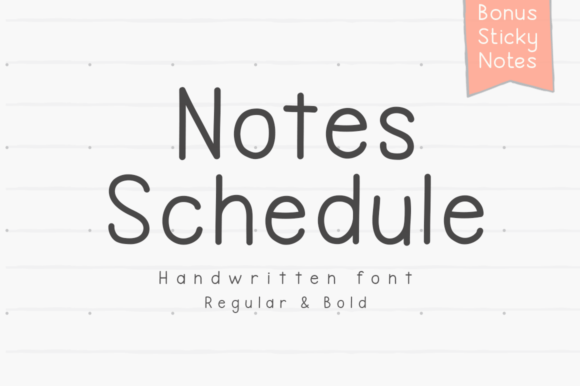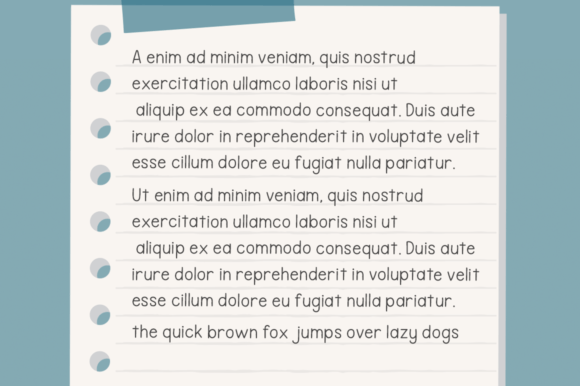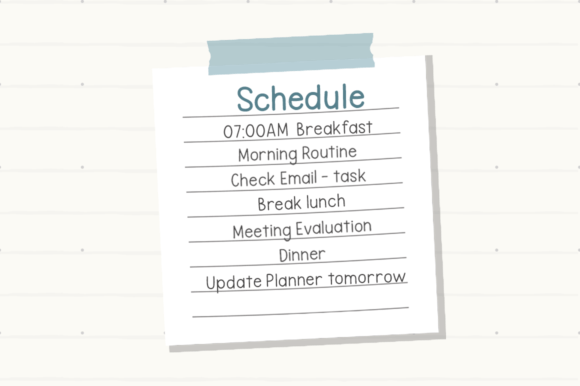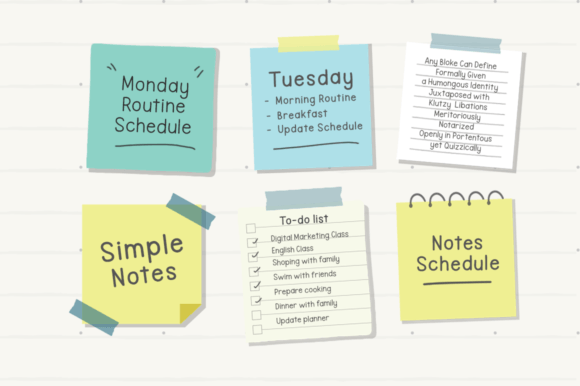
Notes Schedule Font
About the Notes Schedule Font
Unleash your creativity with Notes Schedule Font, a versatile font perfect for a wide range of applications. Schedule Notes is a simple handwritten note-taking font, you can use this font in various projects blog posts, branding, digital planners, invitations, greeting cards, planners, decorations, and more.
Its informal, handwritten style makes it ideal for projects needing a personal touch, such as branding for small businesses, handwritten-style social media posts, or invitations. It works well in headlines, short paragraphs, and on packaging where a casual, approachable feel is desired. However, avoid using it for lengthy body text or UI elements; its legibility suffers at smaller sizes.
Schedule Notes pairs effectively with clean sans-serif fonts like Open Sans or Lato for a balanced contrast, or with a playful script font like Pacifico for a more whimsical feel. A geometric sans-serif like Montserrat could also provide a modern counterpoint, depending on the desired overall aesthetic.
The font’s core personality is friendly and approachable, conveying a sense of casual warmth and approachability. It’s best suited for brands or projects aiming for a relatable, down-to-earth image.
Notes Schedule Font Usage Examples
Notes Schedule Font Example